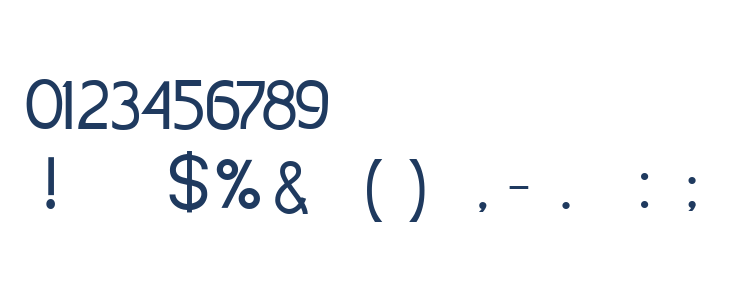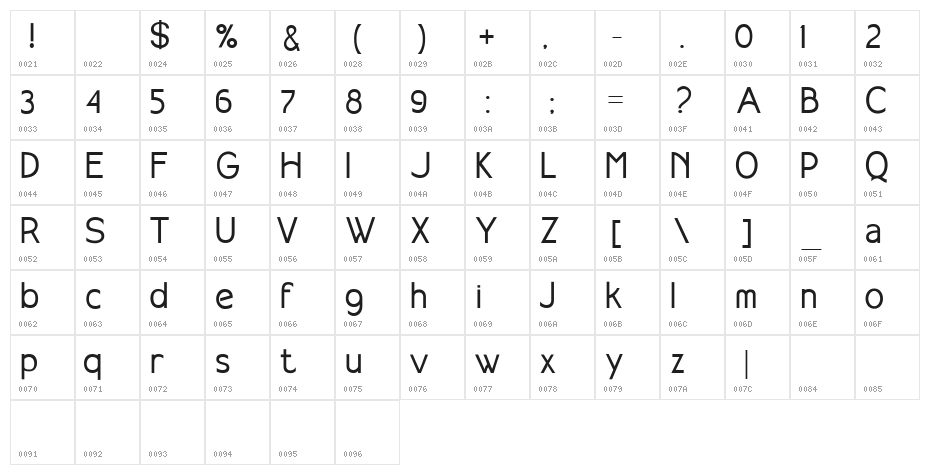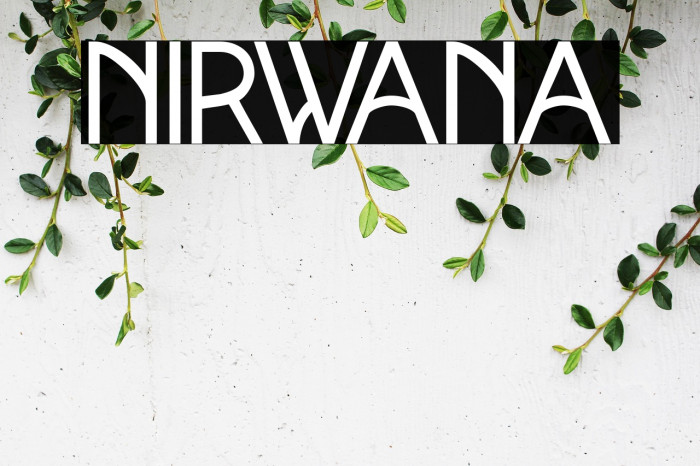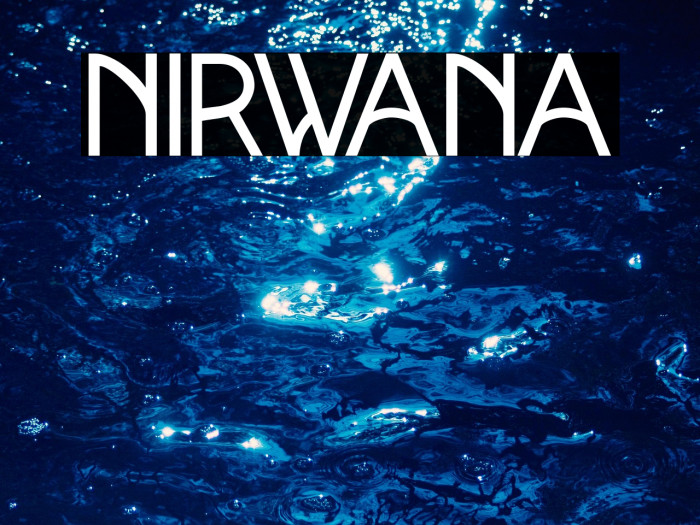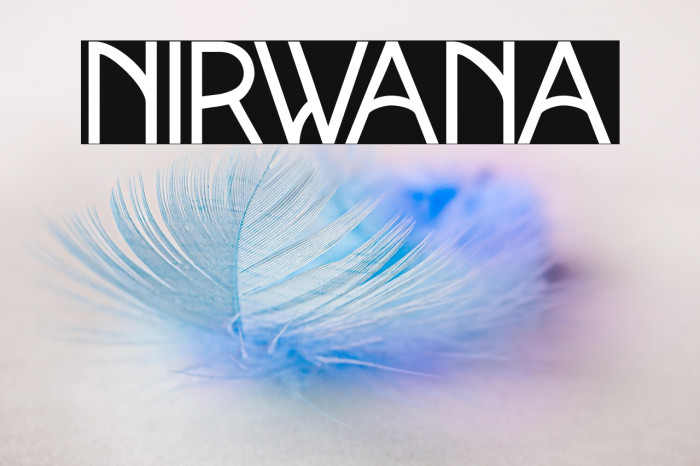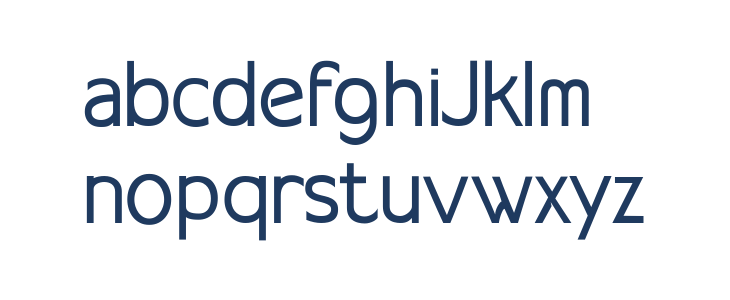
NIRWANA Font
NIRWANA Description
This font features a clean and modern sans-serif design with geometric influences. The characters are well-balanced, with a uniform stroke width that gives a harmonious and sleek appearance. The uppercase letters are bold and assertive, while the lowercase letters maintain a friendly and approachable look. The numerals are clear and easy to read, making them suitable for various applications. Special characters are included, providing versatility for different contexts. The overall design is minimalistic, emphasizing clarity and readability.
| Proposed Projects | Ideal for branding, web design, advertising, and editorial projects that require a modern and clean aesthetic. |